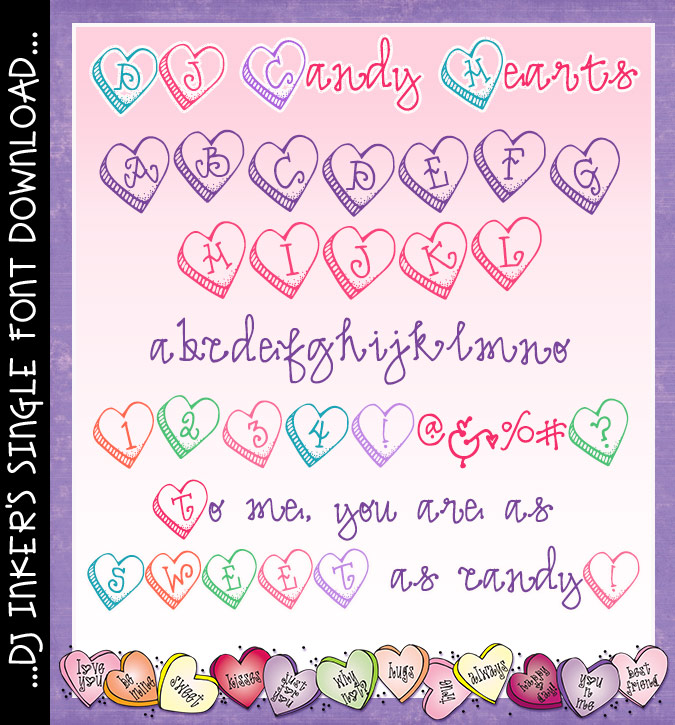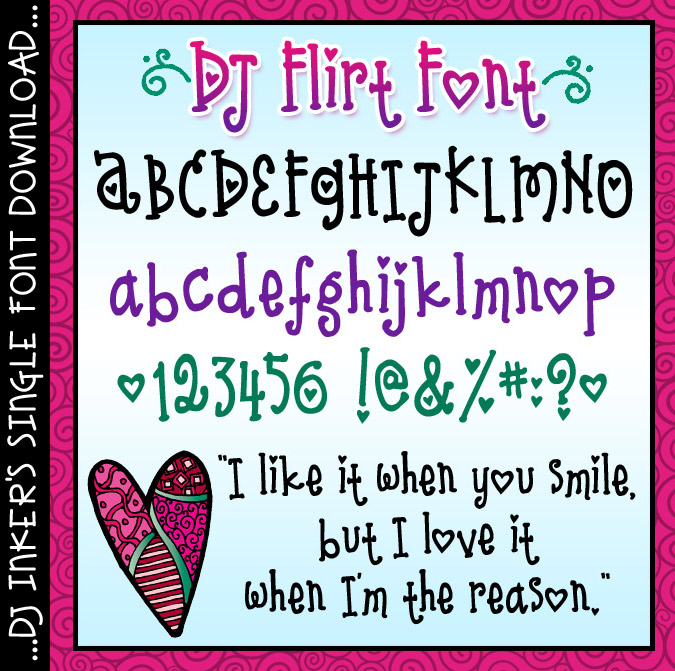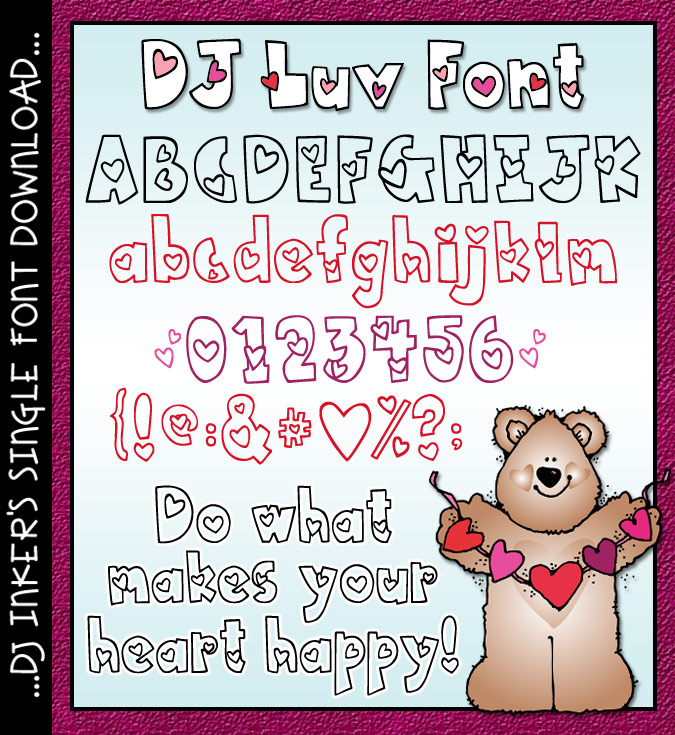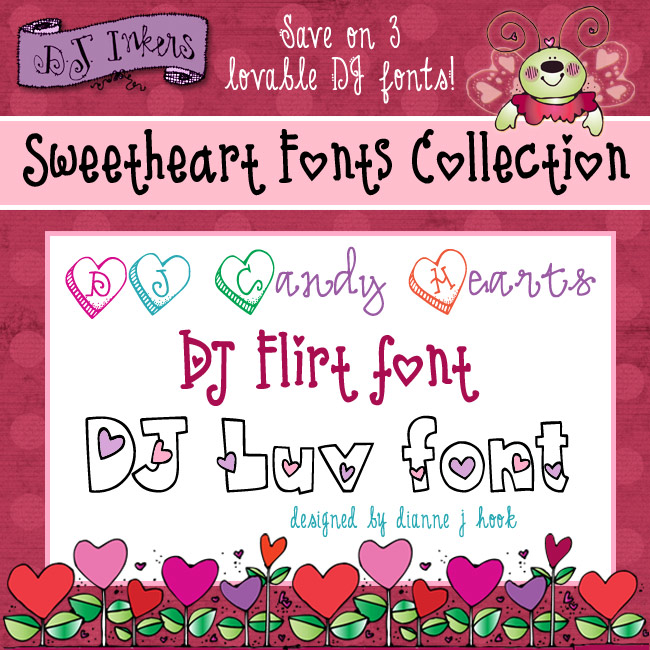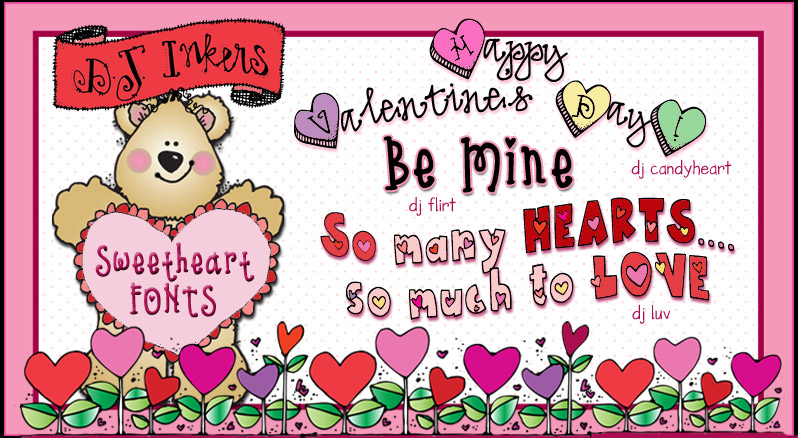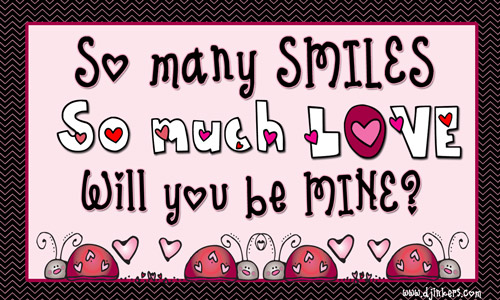
DJ Sweetheart Fonts - Love & Heart Lettering Collection
If your heart is longing for cute lettering, you'll love our Sweetheart Fonts Collection! This set includes 3 DJ fonts to help you create heartfelt smiles, love letters & Valentines. There's DJ Candy Hearts, DJ Flirt and DJ Luv (also sold separately). Treat yourself and save with this lovable bundle!
DJ Candy Hearts has been cleaned & updated from version 1 on  Fontastic Too.